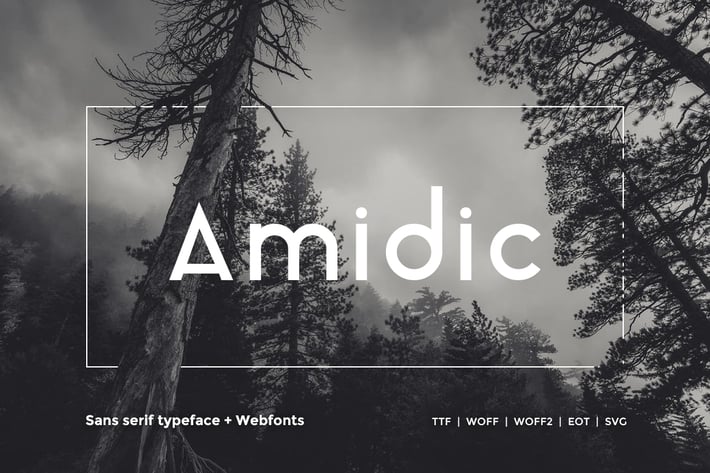
Amidic - Modern San-serif Typeface + WebFont
Amidic Sans
Amidic Sans is a modern Sans Serif classic headline typeface inspired by some classic geometric typefaces that keep the minimalism at its level best. The concept of Amidic Sans is based on Classic minimal typeface which was released in the 20th Century, but we have added Modern Styles and concentration to the details. Amidic Sans will be best suited for creating perfect looking headlines that you can always find in fashion web stores and minimal portfolio websites.